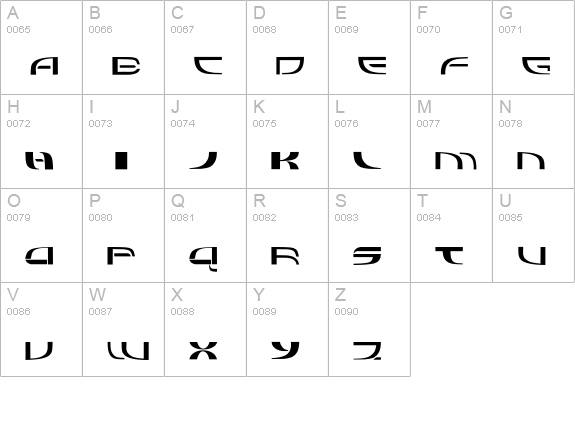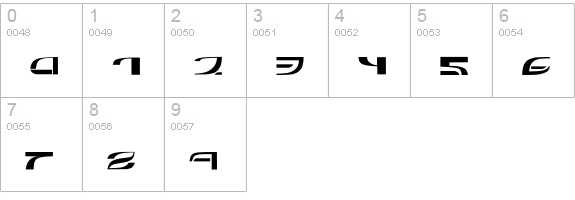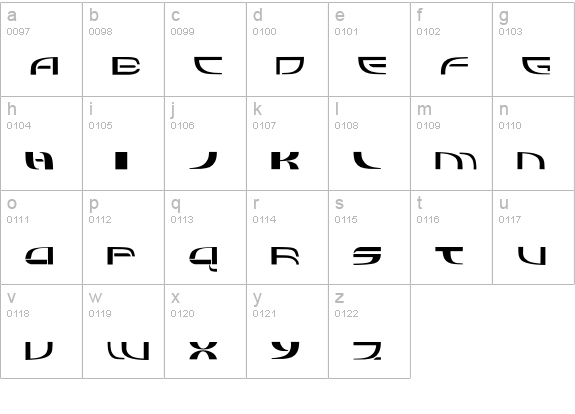
Refluxxed Font Details
Refluxxed font is a stunning display typeface that is sure to make a bold statement. Its unique and intricate design captures attention and adds a touch of elegance to any project. With its sleek and modern appearance, Refluxxed font is perfect for branding, logos, headlines, and more. What makes Refluxxed font even more impressive is that it is available for free download at FontsMarket.com. This means that designers and creatives alike can take advantage of its beauty and versatility without any cost. Whether you are a professional designer or just starting out, this font is a must-have in your toolkit. Featuring clean lines and curves, Refluxxed font is easy to read and legible at any size. Its sharp edges and attention to detail make it a standout choice for both digital and print designs. From website headers to social media graphics, this font will add a touch of sophistication to any project. With a wide range of glyphs and characters, Refluxxed font offers endless possibilities for customization and creativity. Its versatility allows it to be used in a variety of design styles and themes, making it a go-to font for designers looking to make a lasting impression. Overall, Refluxxed font is a top-notch typeface that combines beauty, versatility, and affordability. Its freely available download at FontsMarket.com ensures that everyone can experience its stunning design and elevate their projects to new heights. So why wait? Download Refluxxed font today and let your creativity flow!